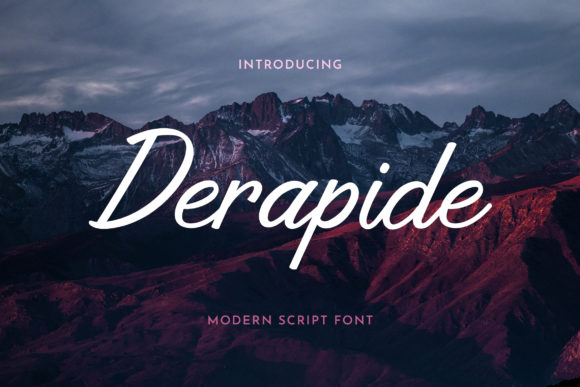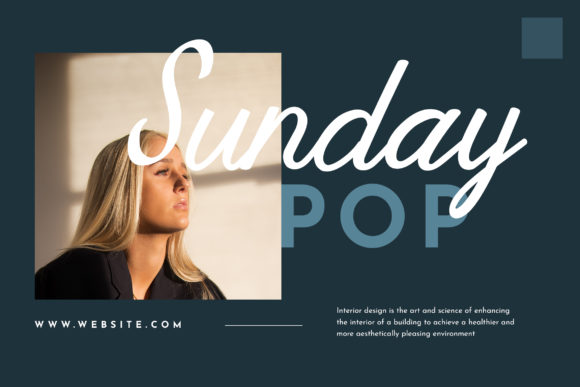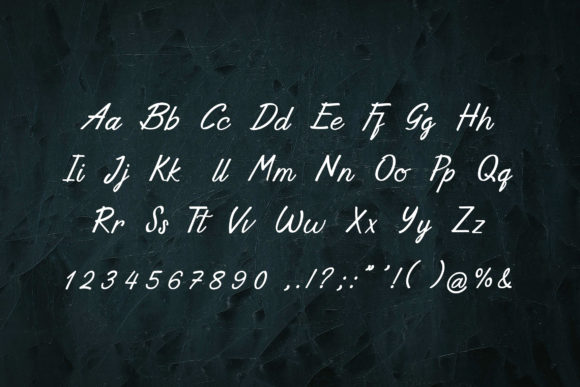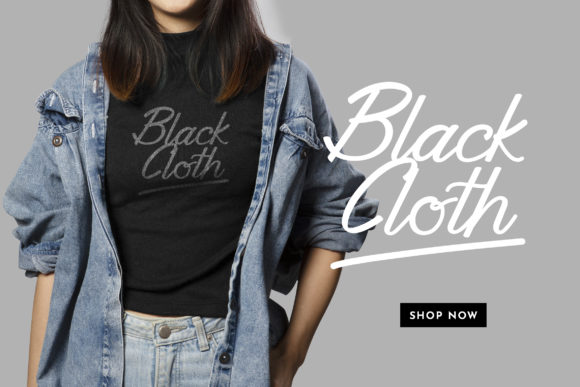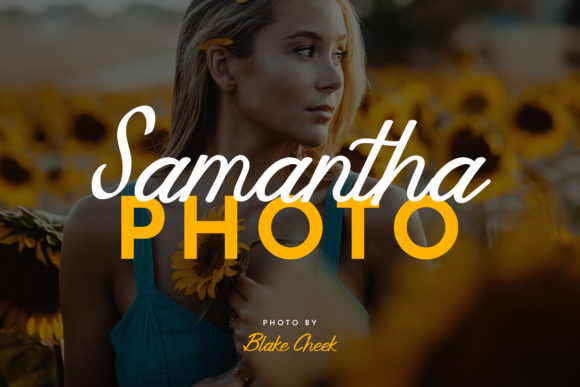
About Derapide Font
Derapide is a cursive and well balanced paint brushed handwritten font. Dainty and joyful, this font will be ideal for writing wedding invitations, cards or any other design that may need a romantic, personalized touch!